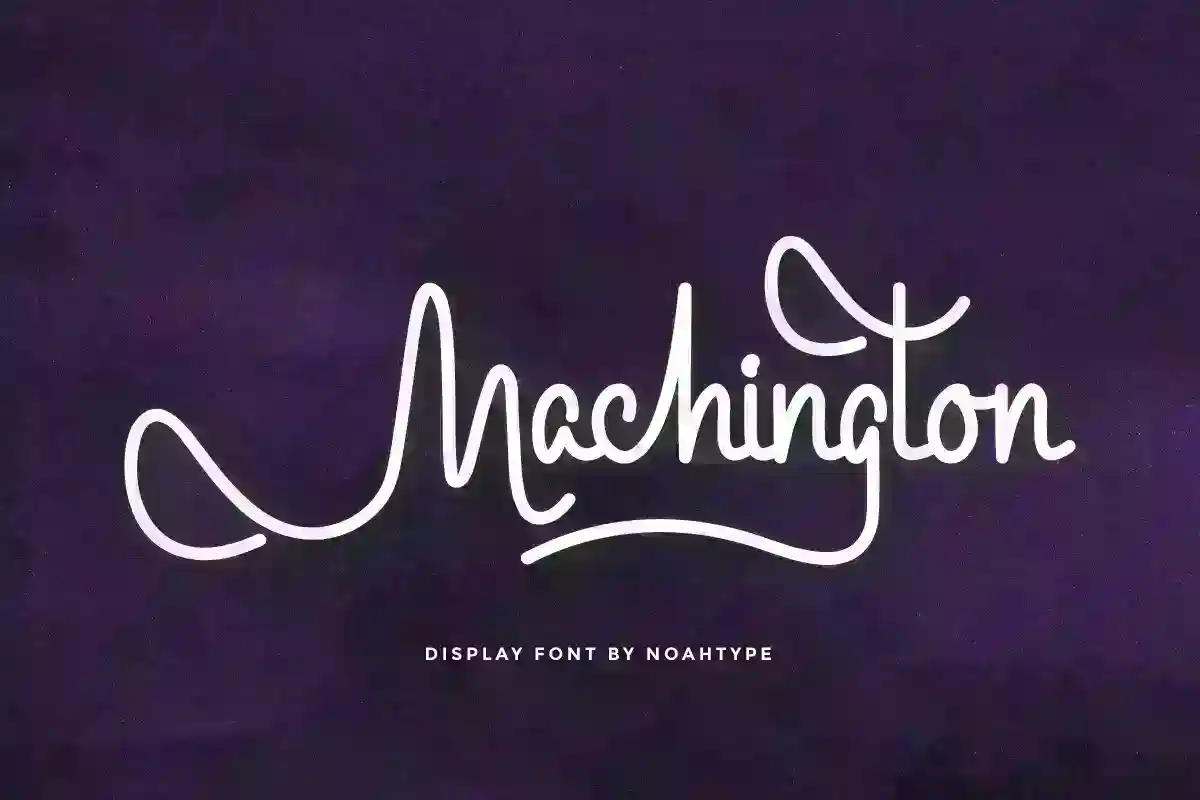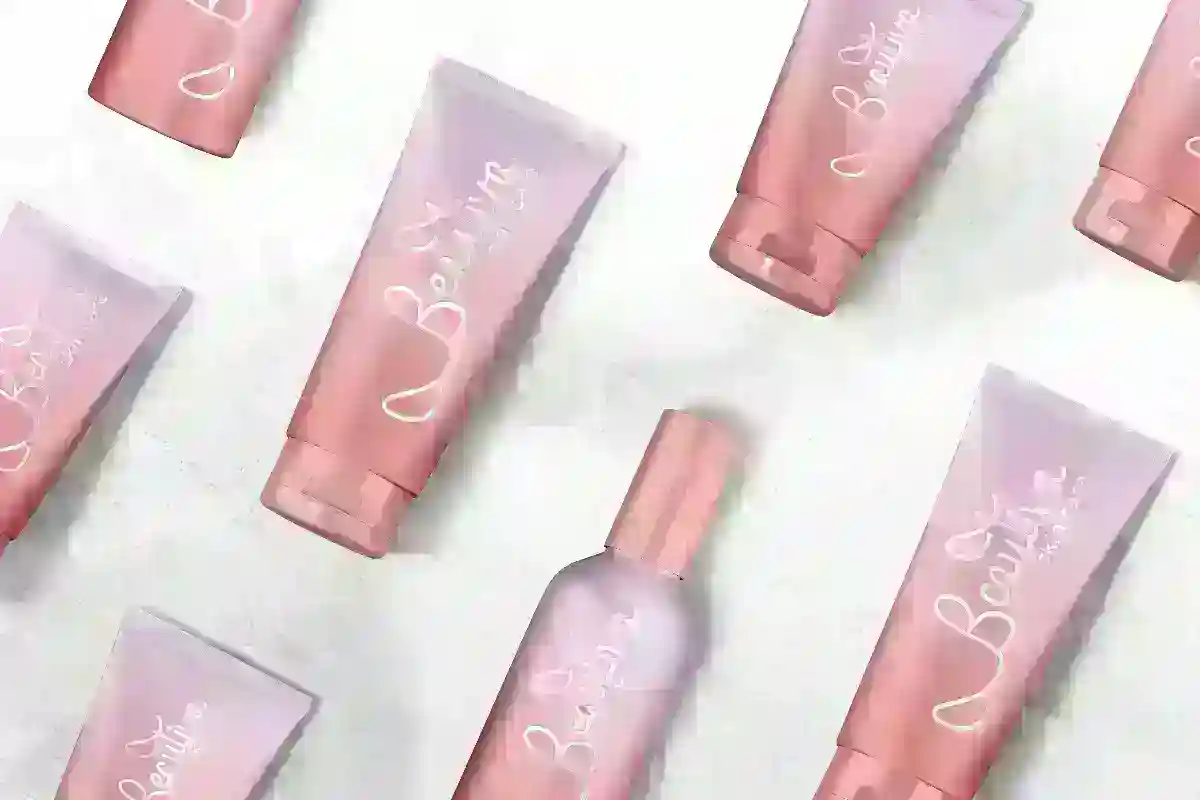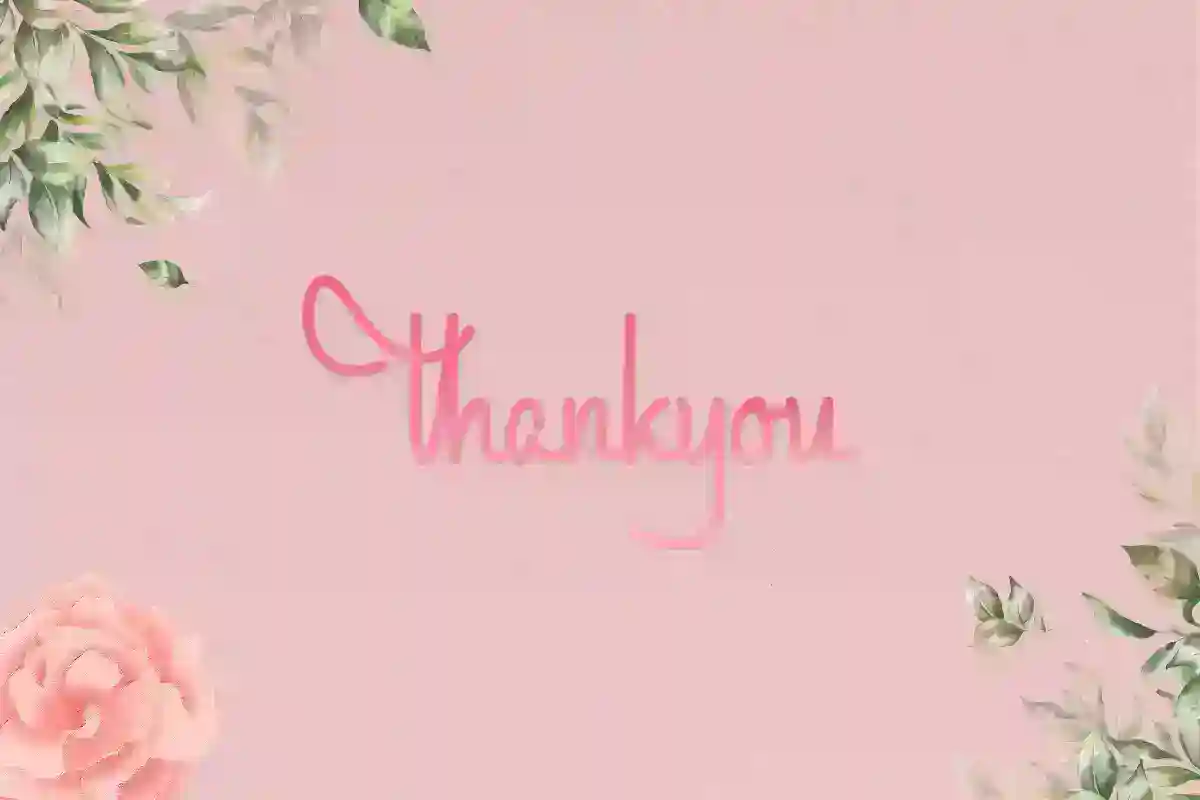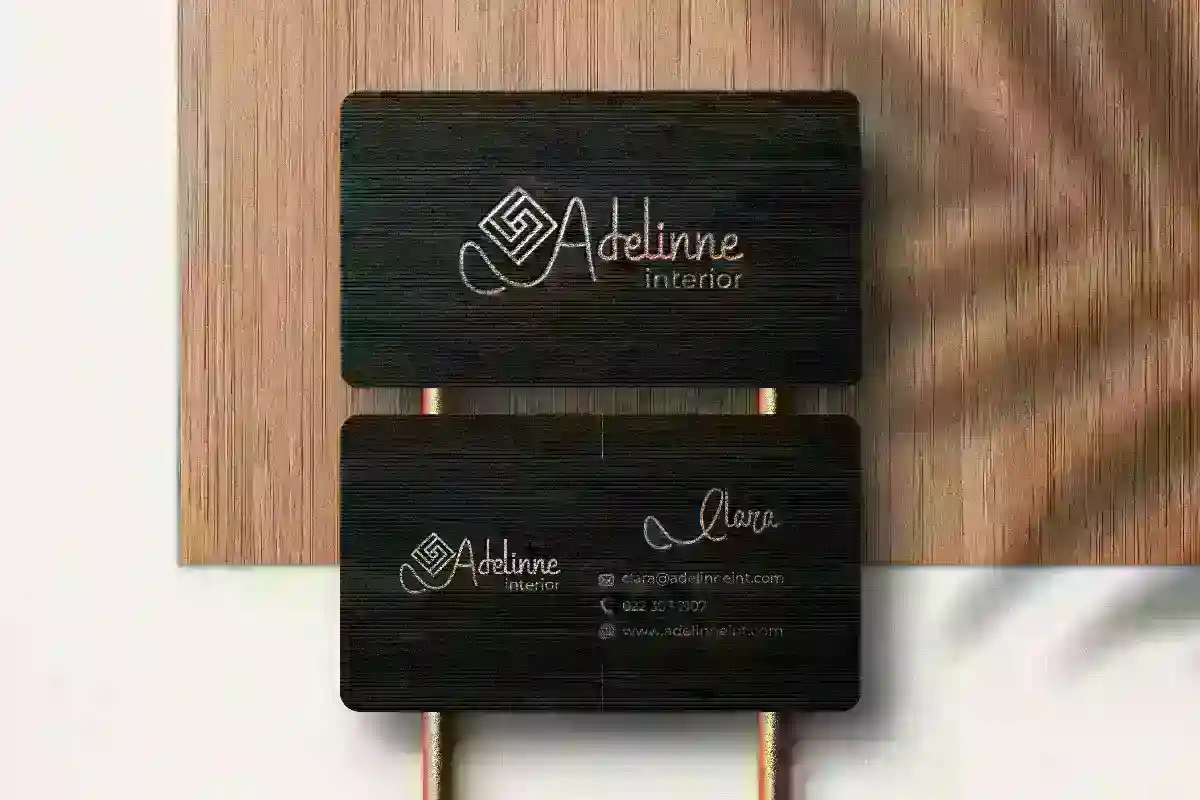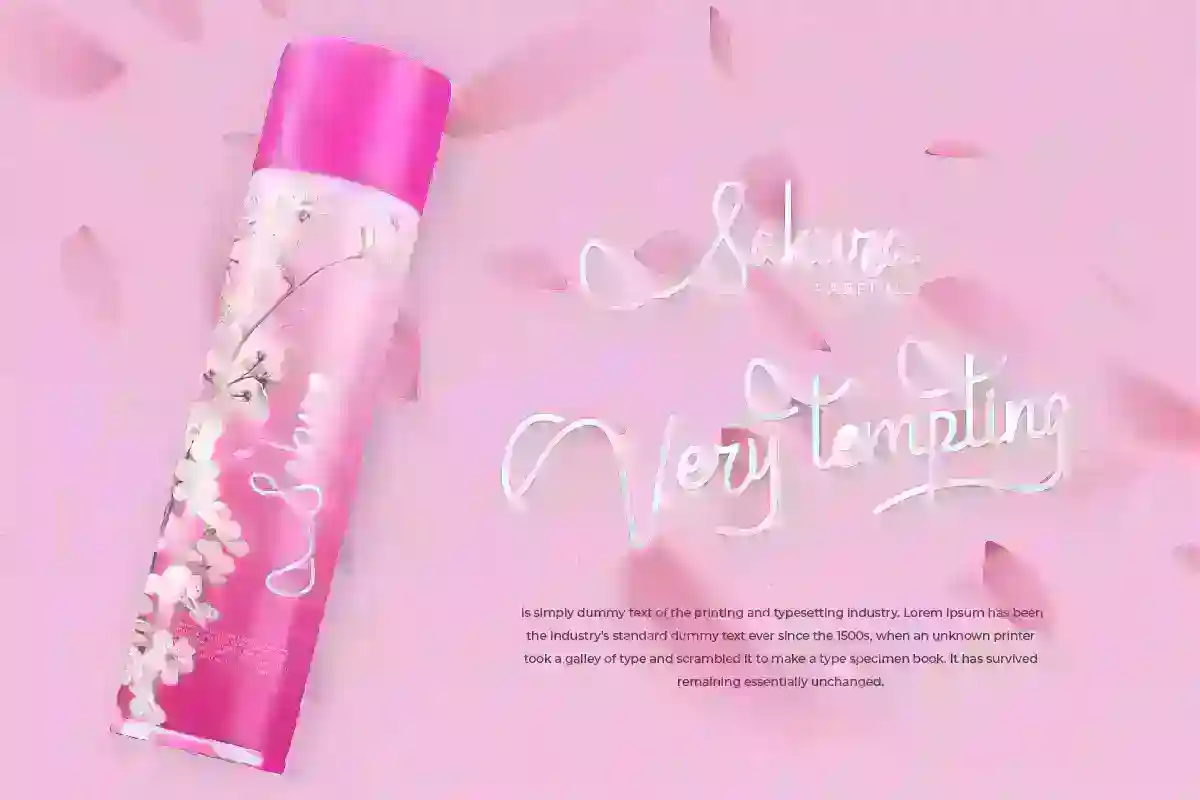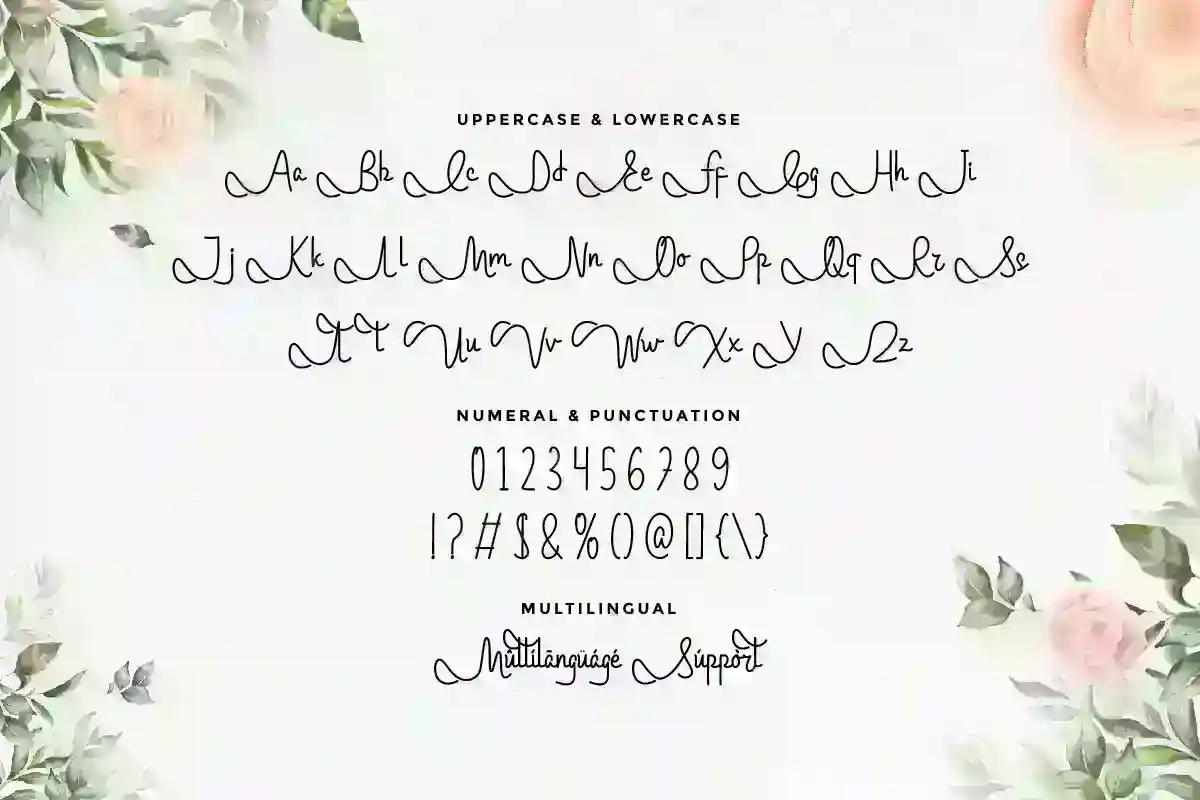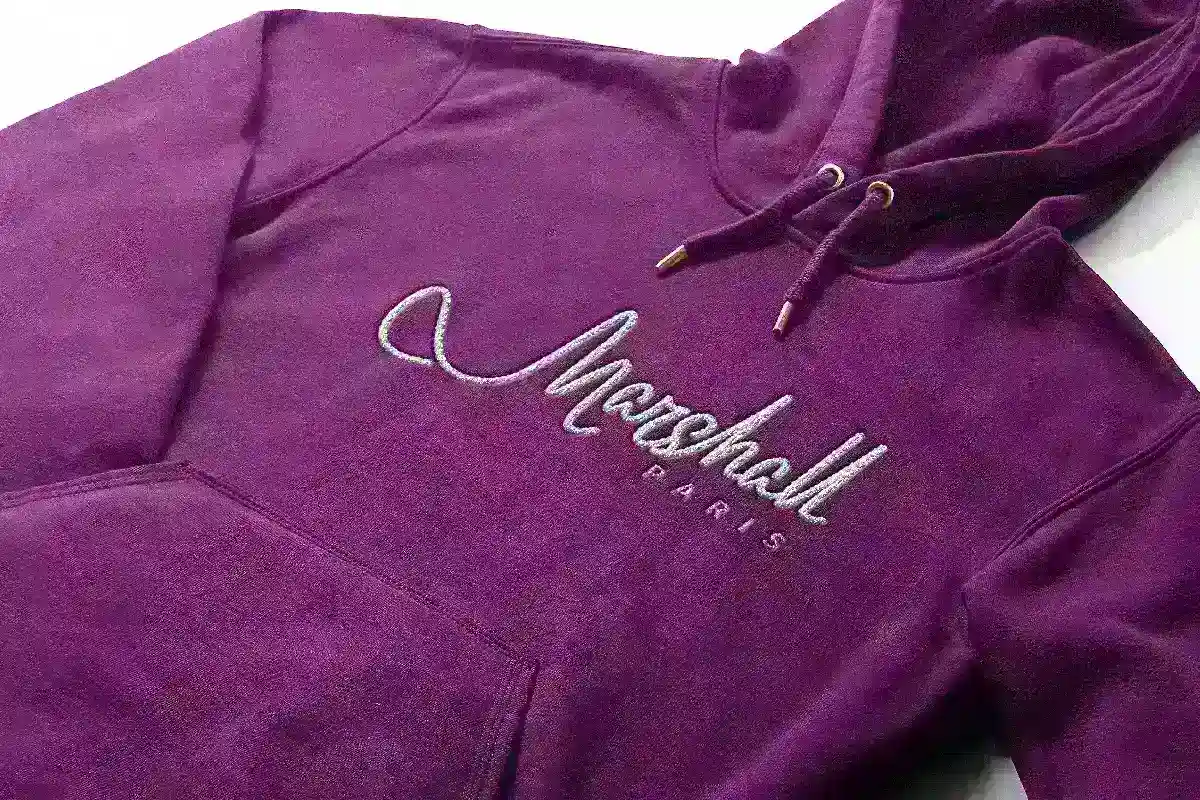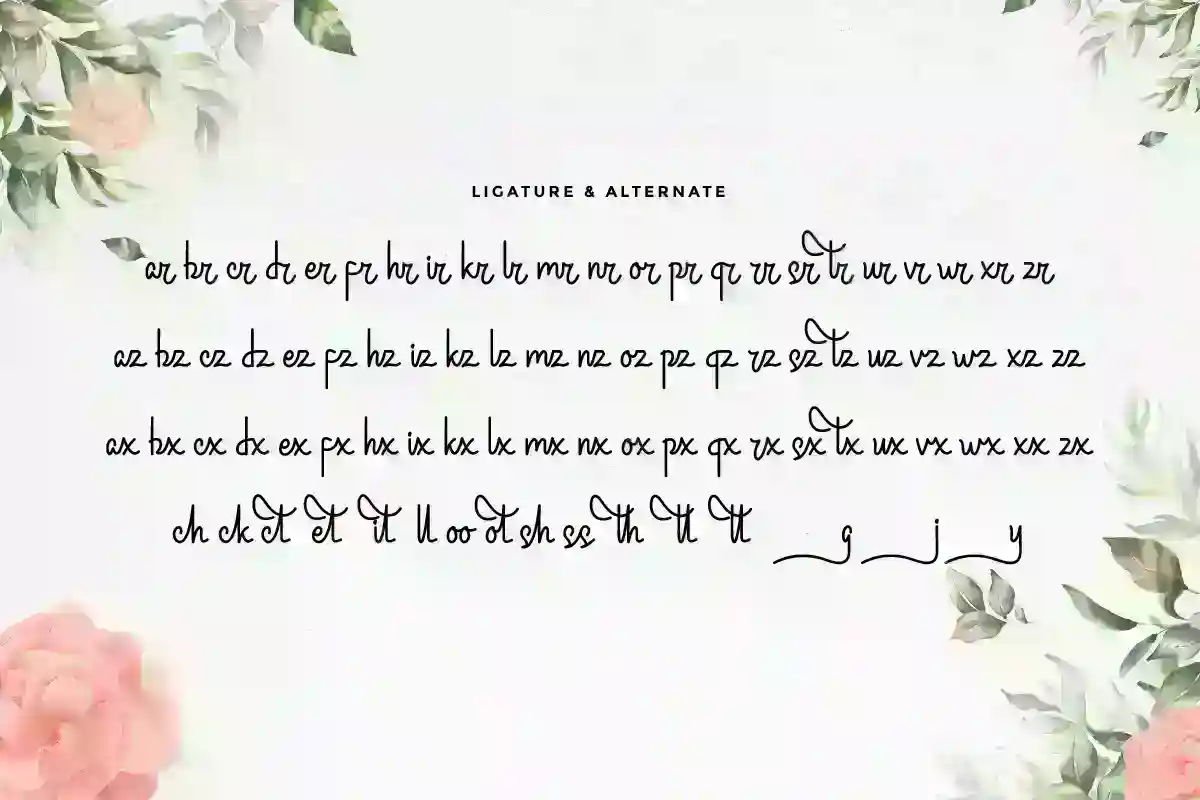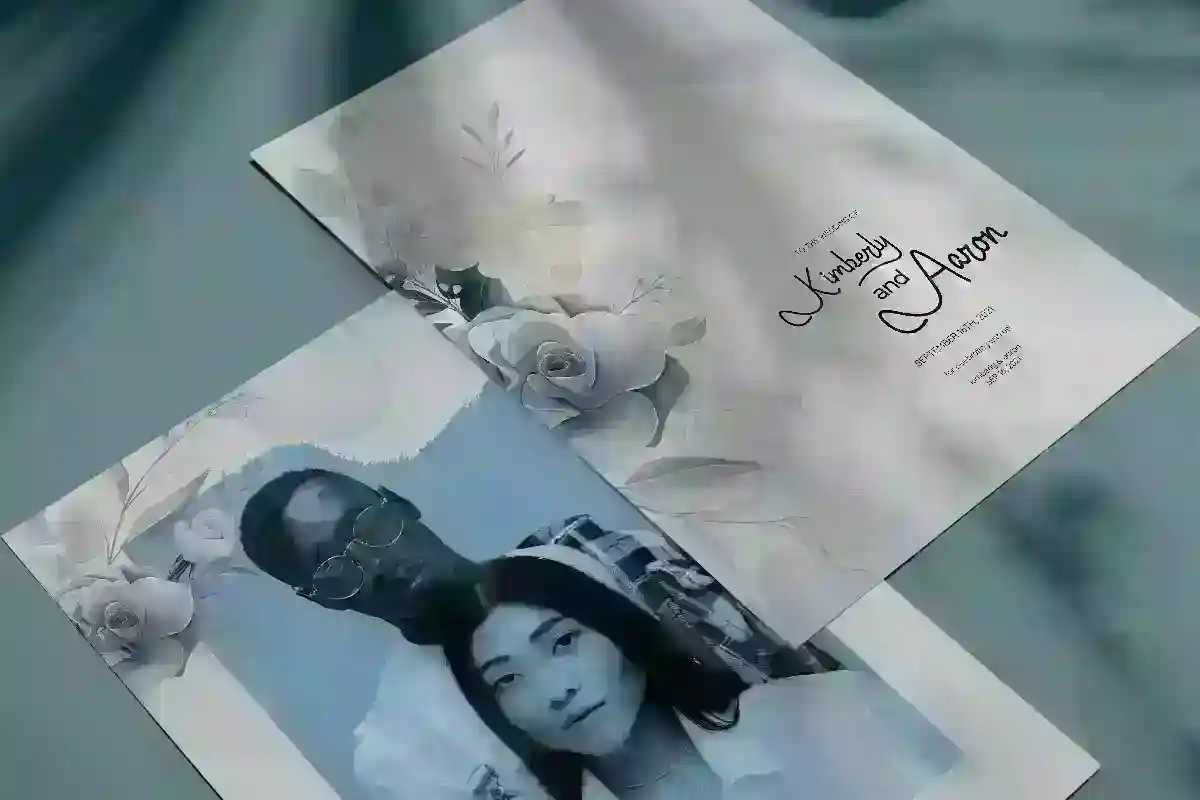
Machington is a beautiful monoline handwriting font with unique hand lettering style. This font is crafted carefully in every its single scratch, created to look as close to a natural handwritten script so that it can create the perfect combination on each glyph. When we make this font, we really want to create a touch that is so free-flowing that it gives a natural impression on its use later. We made a special tails on the characters so the font characters will be unique and exclusive. This awesome script is for anyone who are needing of uniqueness and stylish on their designs.
Machington handwriting Font includes full set of Uppercase and Lowercase Basic Characters, Numerals and Punctuation. Also it contains ligatures and alternates characters to perfectly make natural handwriting look that add more beautiful and aesthetic fonts to perfect your extraordinary project. Machington Font will be awesome for wedding, engagement, branding, invitations, florist, hair stylish, makeup artist, event organizer, movie, music, festival, promotions, social media etc
Machington Romantic Font supports multilingual languages (including multiple currency symbols). With a simple installation, the Machington Font will be ready to use both on Windows machine or Mac. In order to use alternative characters, usually we just need to block the end letters and select alternative letters on glyphs option. It really common in almost any software (Character Map for Windows and Font Book for Mac.). It work well on Adobe software such as Illustrator, Photoshop and several other software.
Machington Font will be great for branding, logotype, social media post, poster, invitation, watermark, lettering and many more